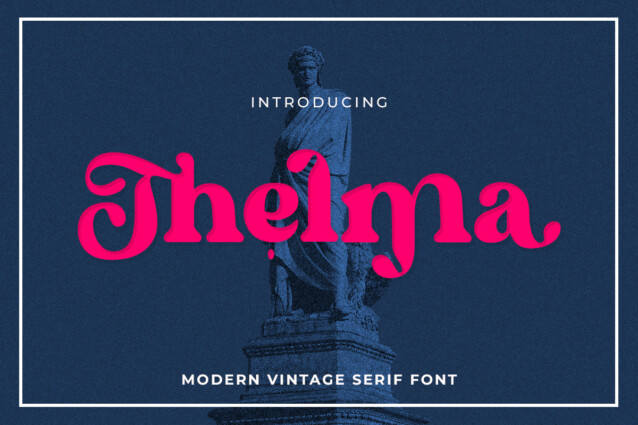
Thelma Typeface
Thelma Typeface is a brand new display font. Its quirky letterforms make this font perfect for branding, headlines, logotype, stickers, editorial design, and more.